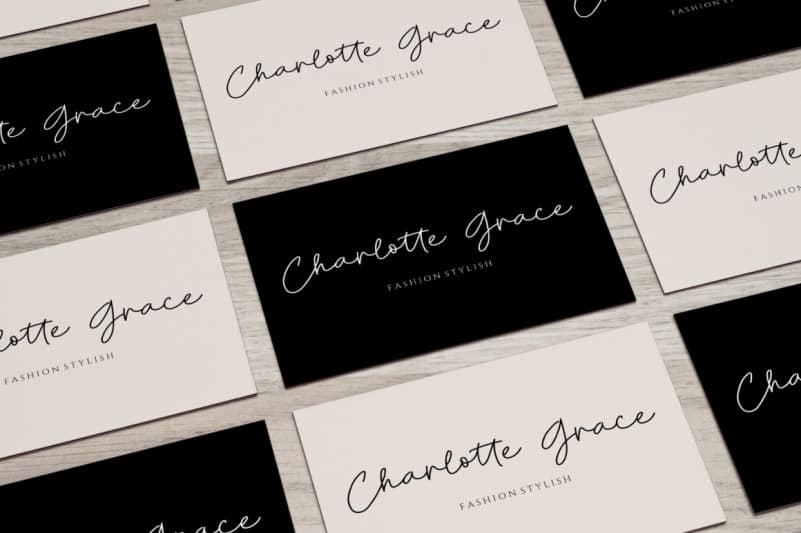
Introducing Billion Times Handwritten Font – A stylish, fresh new handwritten script typeface. Billion Times was created to look as close to a natural hand-written script. It’s perfect for logos, quotes, invitations, blog posts, business cards, presentations and more.